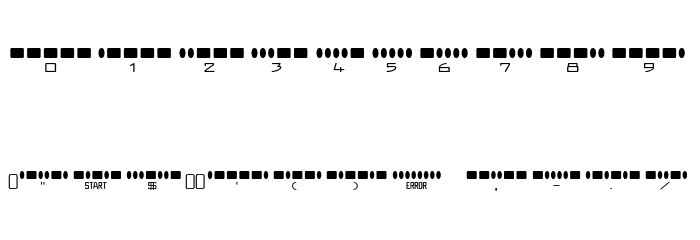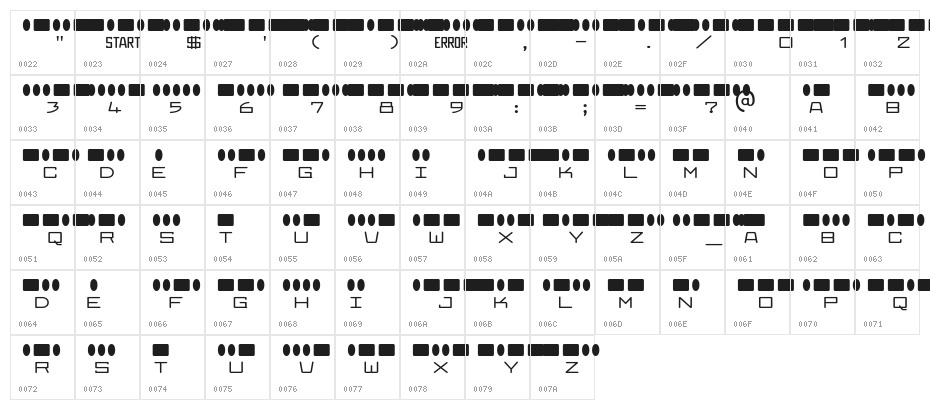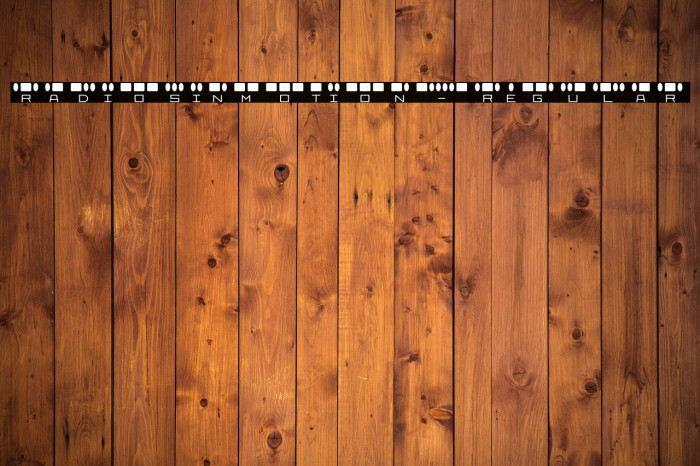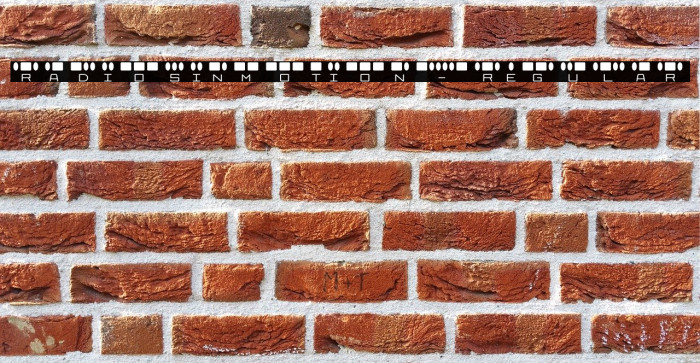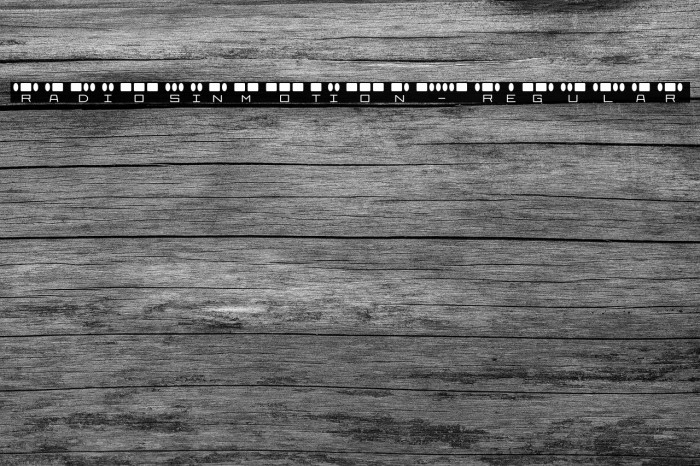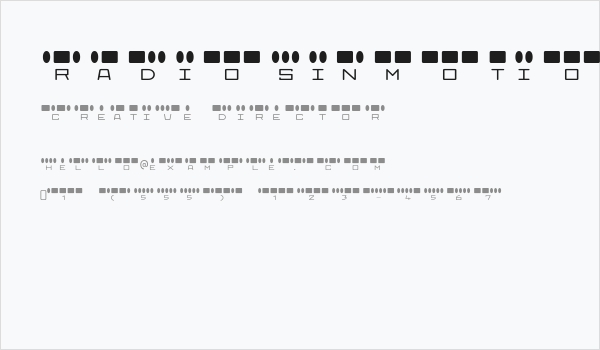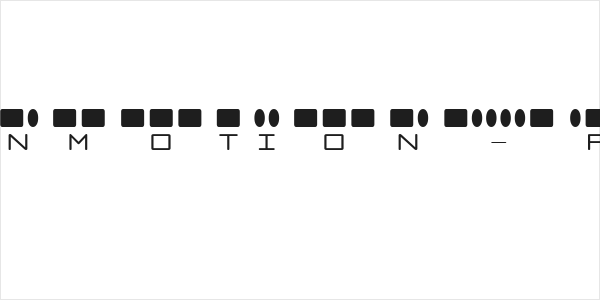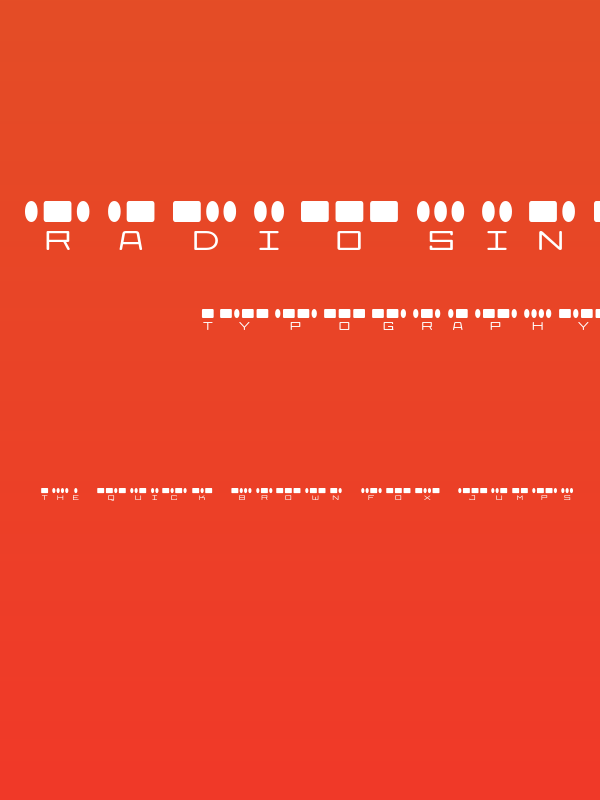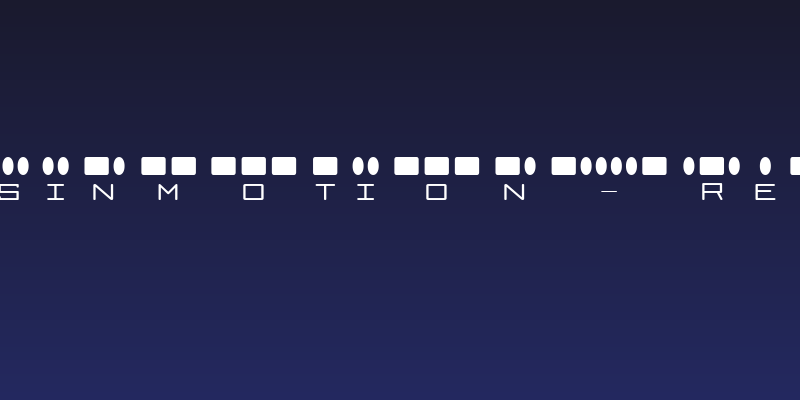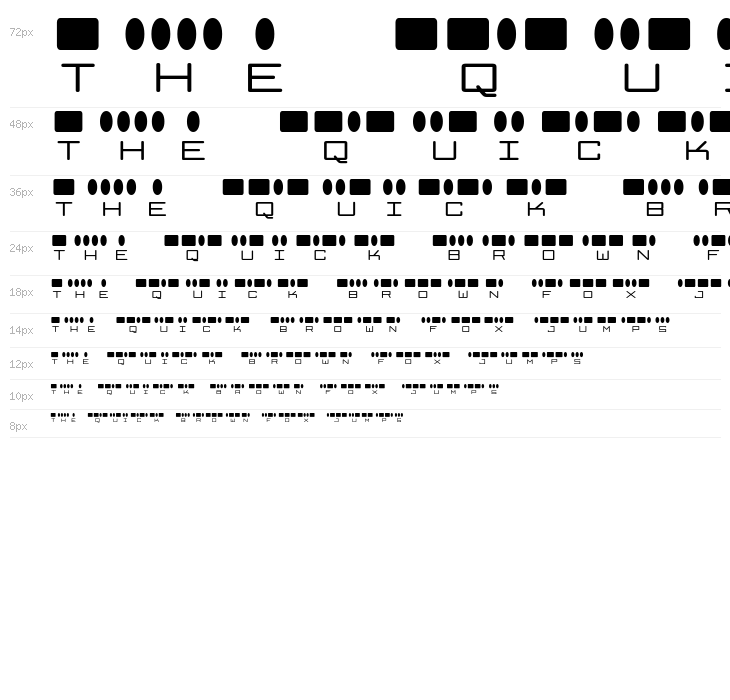
RadiosinMotion-Regular Font
RadiosinMotion-Regular Description
This font is a unique and creative design that combines Morse code elements with traditional letterforms. Each character is represented by a combination of dots and dashes, reminiscent of Morse code, while maintaining readability with clear, geometric shapes. The uppercase and lowercase letters are distinct, yet cohesive, providing a modern and innovative look. The numerals and special characters follow the same design principle, ensuring consistency across the entire character set. This font is perfect for projects that require a blend of technology and communication themes.
| Use Case | Logos, Posters, Educational Materials |
| Proposed Projects | Ideal for tech-themed designs, educational materials on communication, or creative branding projects. |